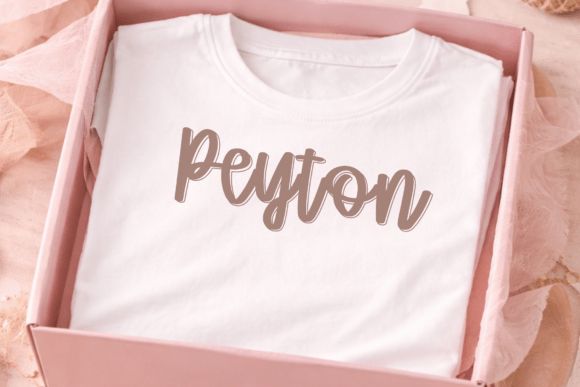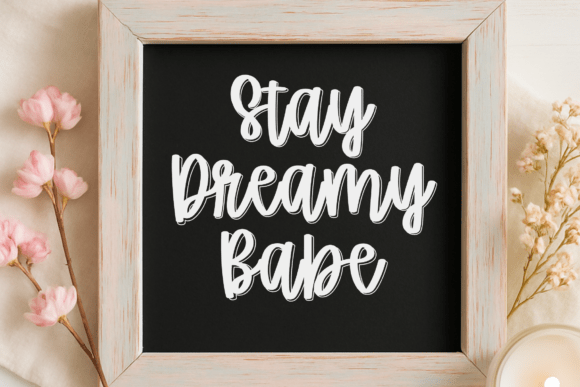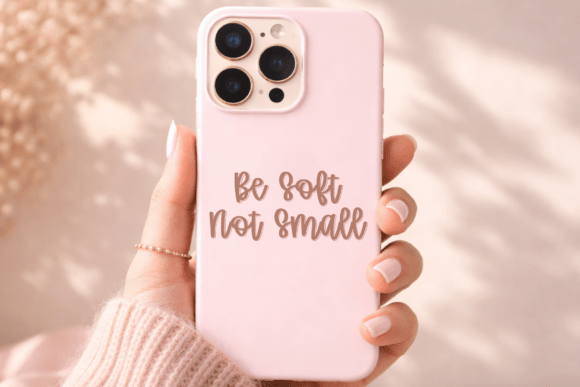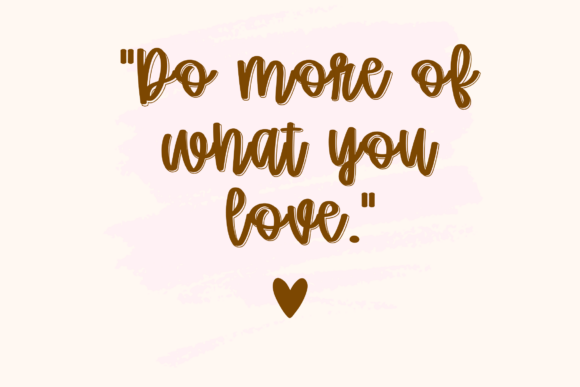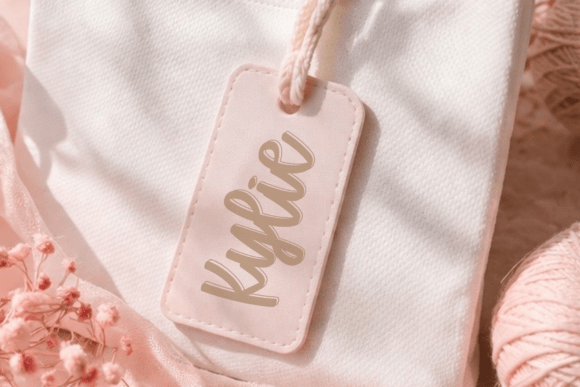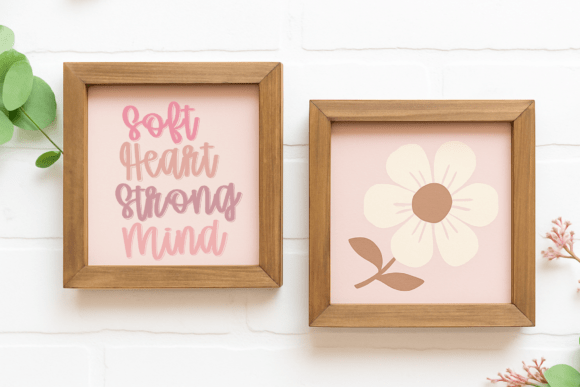
The Designer’s Delight: How Double Charm Font Elevates Your Creative Projects
I’ll never forget the time I was working on a branding project for a trendy boutique, and I just couldn’t find the right font to capture their playful yet sophisticated vibe. The client wanted something that would stand out on social media, but still convey a sense of elegance. I spent hours scouring the internet for the perfect match, until I stumbled upon Double Charm Font. It was love at first sight! ✨
With its smooth curves, playful strokes, and unique double-line effect, Double Charm instantly added a touch of personality to my designs. I knew right then and there that I had to share this amazing font with fellow designers, crafters, and creative hobbyists. So, let’s dive into what makes Double Charm so special and how you can make the most of it in your projects.
- ✨ Unique double-line effect: Adds depth and visual interest to your designs
- ✅ Smooth curves and playful strokes: Creates a modern yet friendly look that’s perfect for a wide range of projects
- 📚 Easy to read and versatile: Great for both aesthetic and functional uses, from branding to social media graphics
A Few Quirks to Consider
- 🤔 Some limitations with OpenType features: While Double Charm supports many advanced typographic features, it may not have every possible alternate or glyph
- ⚠️ May require manual kerning: Depending on your design and font size, you might need to adjust kerning for optimal results
The Story Behind Double Charm: A Designer’s Inspiration
Double Charm was born from a passion for elegant yet playful typography. Its creator, a talented type designer, aimed to craft a font that would add a touch of sophistication and whimsy to any design. Inspired by classic calligraphy and modern digital art, Double Charm combines the best of both worlds to create a truly unique font experience.
Q: Is Double Charm suitable for body text?
A: While Double Charm is primarily designed for display purposes, its clarity and readability make it suitable for short paragraphs or captions. However, for longer body text, a more traditional font might be a better choice.
Q: Does Double Charm support non-English characters?
A: Double Charm includes a range of characters and accents, but it may not support every non-English character set. For specific character requirements, it’s best to check the font documentation or contact the designer.
Double Charm Font has been a game-changer for my designs, and I’m confident it can do the same for yours. With its unique double-line effect, smooth curves, and playful strokes, this stylish handwritten script font is sure to elevate your creative projects and leave a lasting impression on your audience.